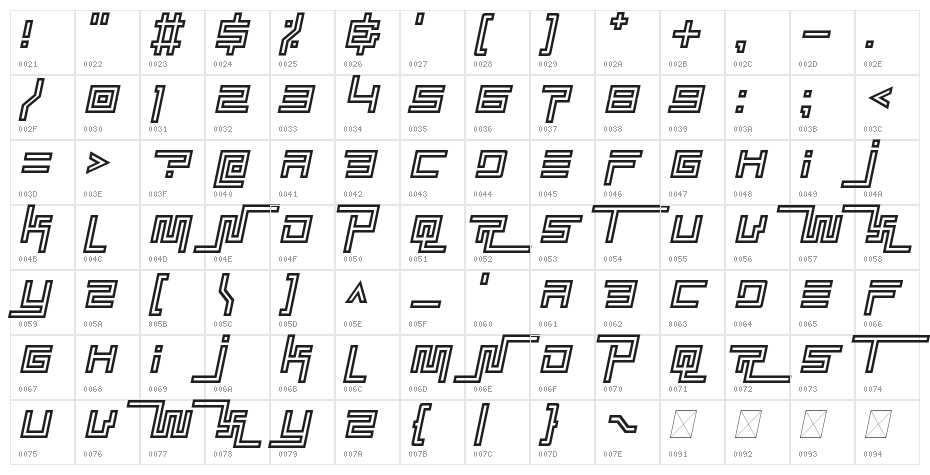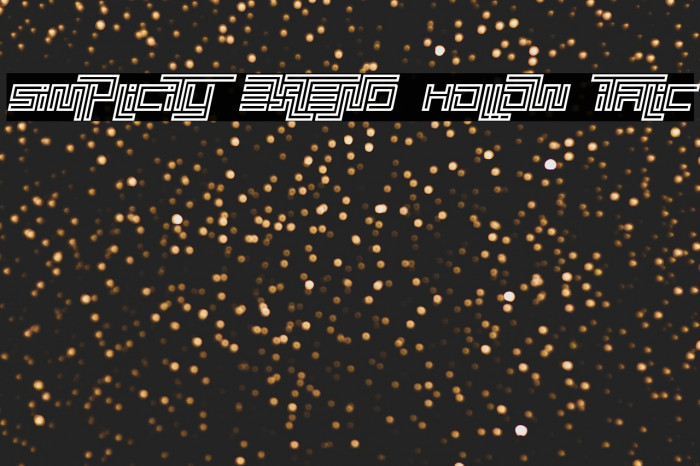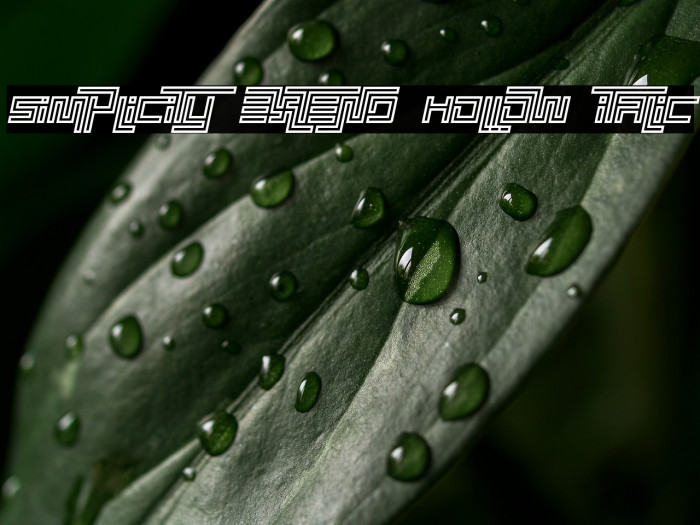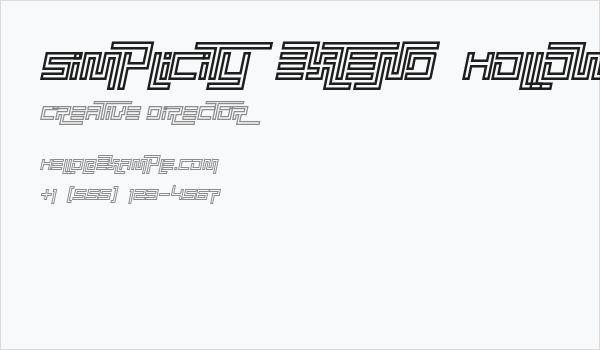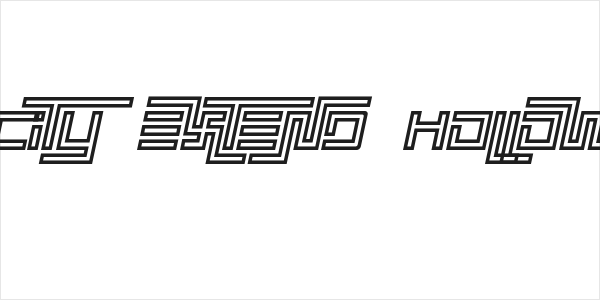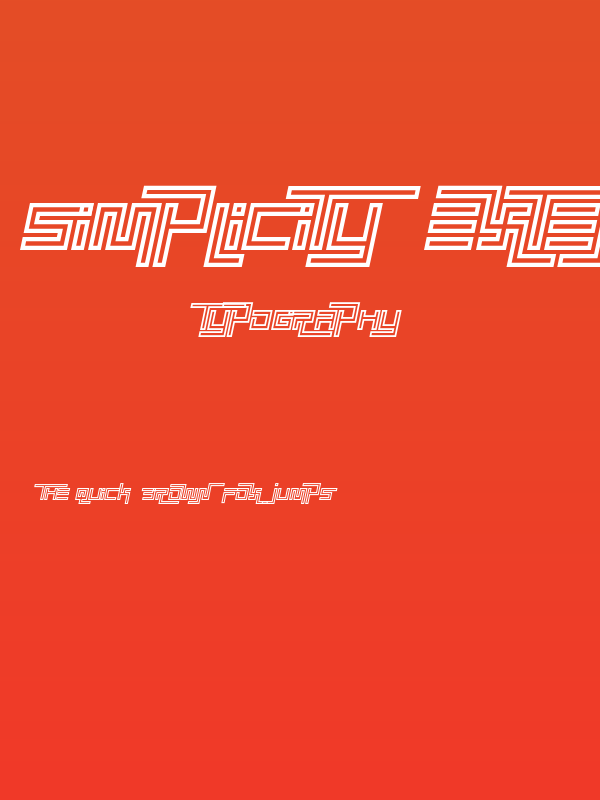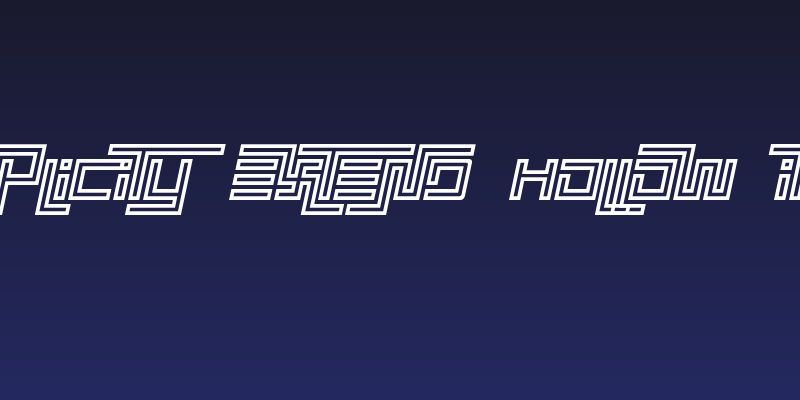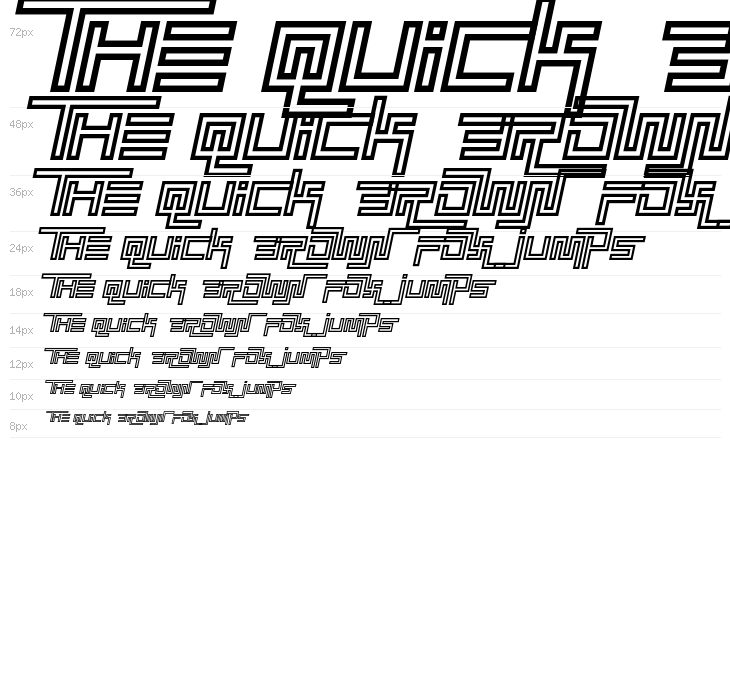
Simplicity Extend Hollow Italic Font
Simplicity Extend Hollow Italic Description
This font features a unique hollow design with an extended geometric style, characterized by its bold, angular lines and italic slant. The characters are outlined, creating a hollow effect that gives a modern and futuristic appearance. The uppercase and lowercase letters maintain a consistent width, contributing to a cohesive look. The numerals and special characters follow the same design principles, ensuring uniformity across all glyphs. This font's distinct style makes it stand out, suitable for creative and eye-catching designs.
| Proposed Projects | Ideal for futuristic designs, tech branding, posters, and digital artwork. |